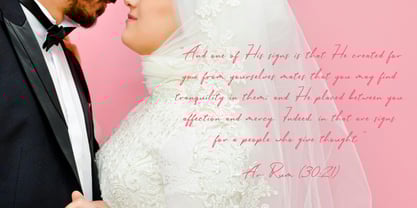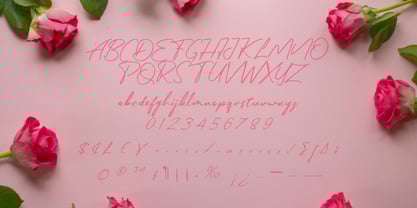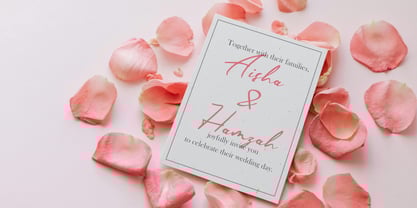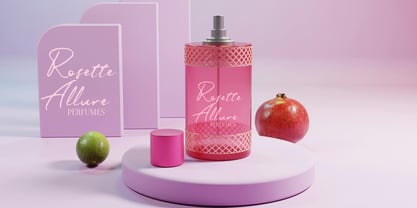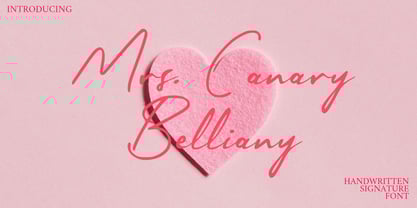
Mrs. Canary Belliany
by Letterytz CalliType
The Mrs. Canary Belliany Font Family was designed by Wahyu Eka Prasetya, Dian Angga Marytama and published by Letterytz CalliType. Mrs. Canary Belliany contains 1 styles. More about this family
Mrs. Canary Belliany – Handwritten Signature Font
Mrs. Canary Belliany is an elegant and graceful handwritten signature font designed to bring a luxurious and feminine touch to your creative projects. Its smooth curves and flowing strokes mimic the beauty of natural handwriting, making it perfect for wedding invitations, branding, and stylish logo designs. This font exudes sophistication and romance, ideal for projects that require a personal and intimate feel.
With a delicate balance of classic and modern script elements, Mrs. Canary Belliany is highly versatile, offering an authentic handwritten charm with a contemporary twist. Whether used for fashion branding, social media graphics, or stationery, this font will elevate your designs with a refined, high-end appeal.
Key Features:
• Elegant, flowing signature-style script
• Natural handwritten feel with smooth curves
• Perfect for luxury branding, invitations, and social media
• Multilingual support
Designers: Wahyu Eka Prasetya, Dian Angga Marytama
Foundry: Letterytz CalliType